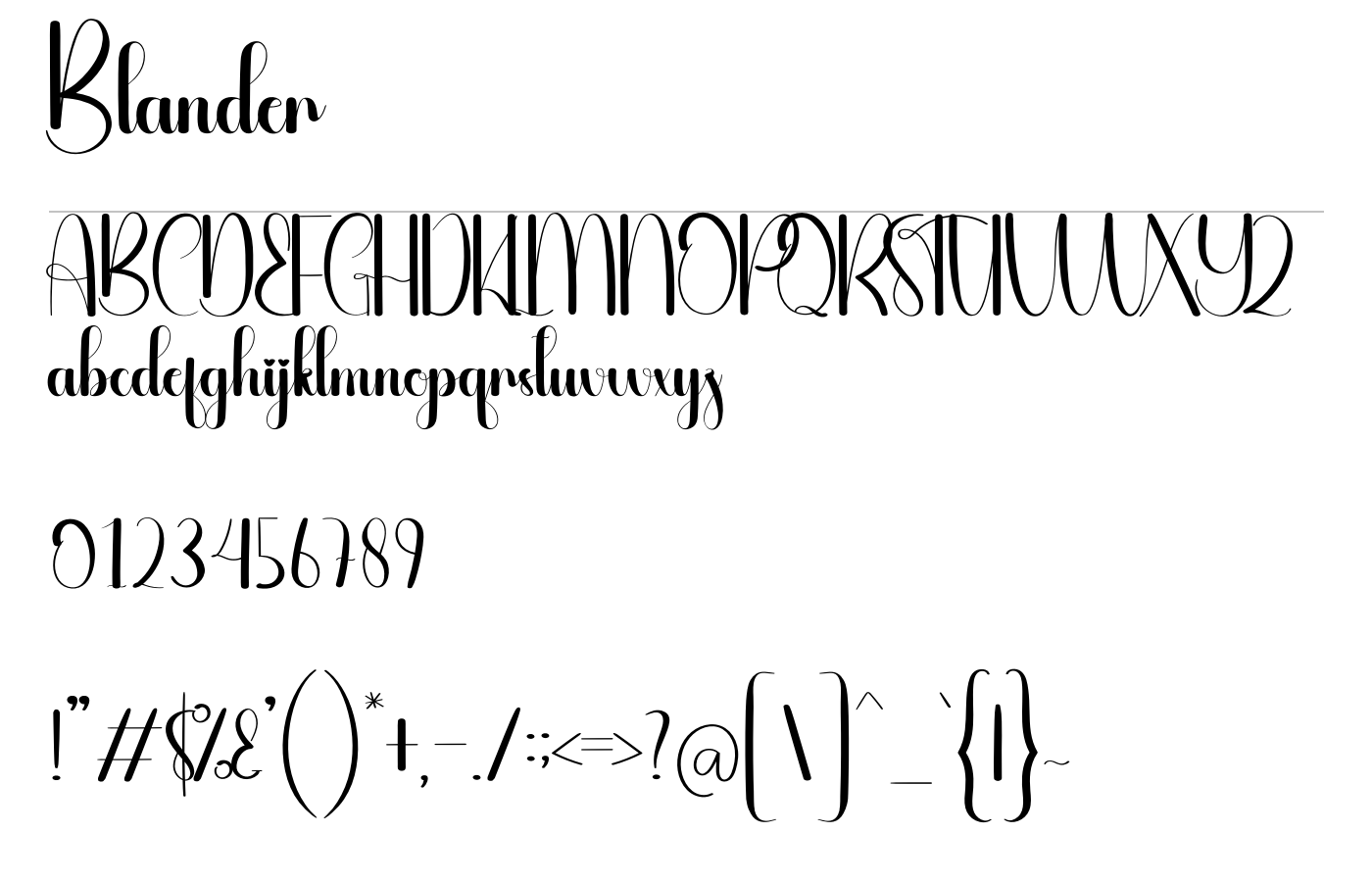
Blander is an elegant handwritten script font characterized by its tall, narrow letterforms and graceful, flowing strokes. It features high contrast between thick and thin lines with playful, decorative swashes, making it perfect for stylish branding, invitations, and fashion-related designs where a sophisticated yet modern touch is desired. This font works best in headlines or logos where its unique personality can shine without compromising readability.
Blander Font
About Blander Font